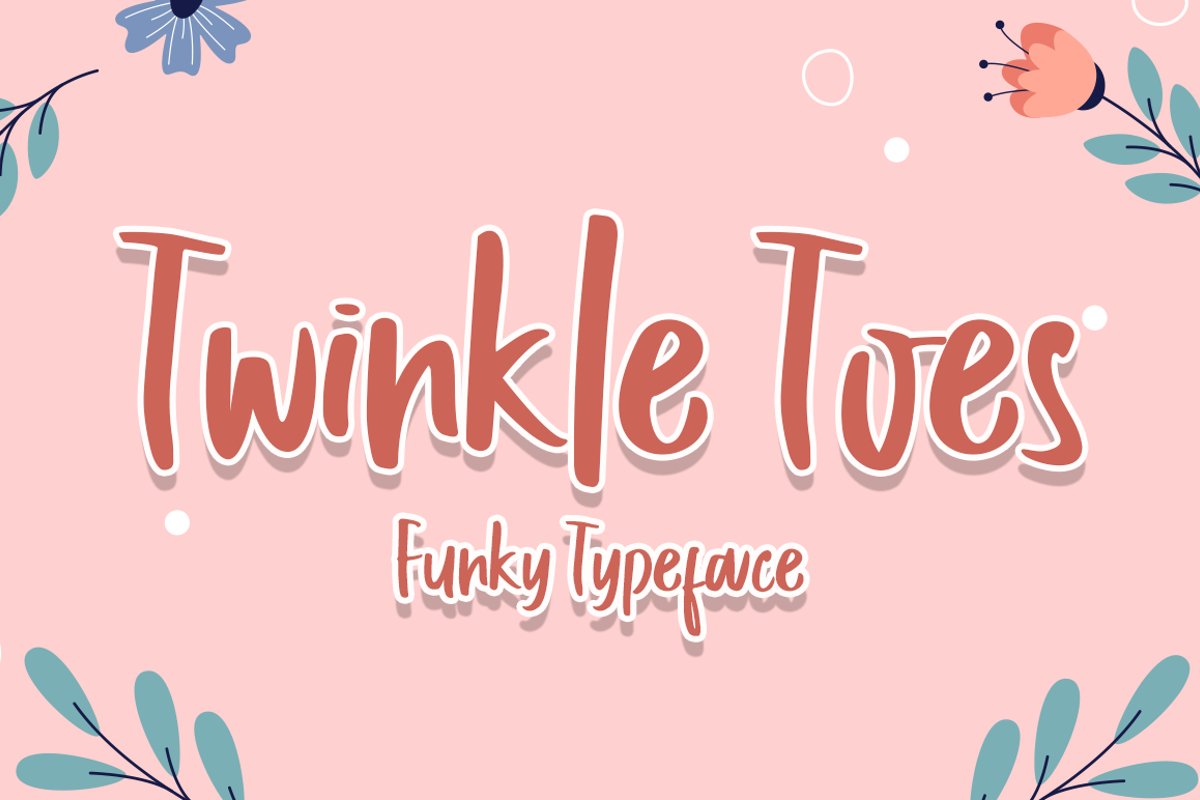
Twinkle Toes
TwinkleToes
This font is perfect for quotes, shirt designs, websites, branding, children's designs,  blogs, logos, invitations and more!
Most accent characters included.